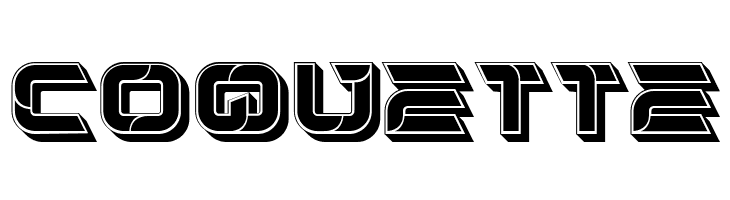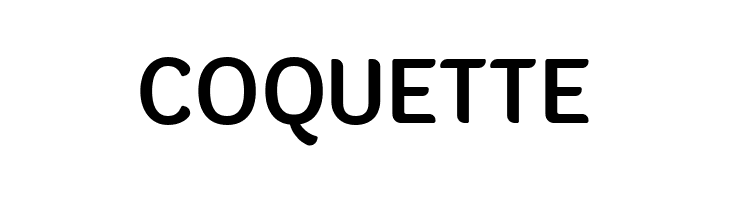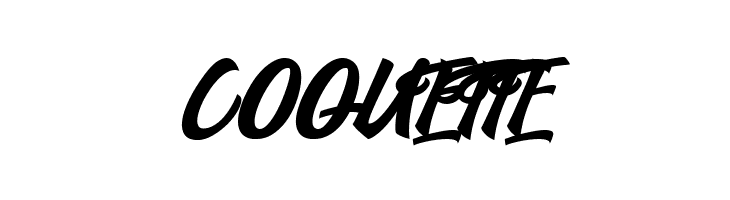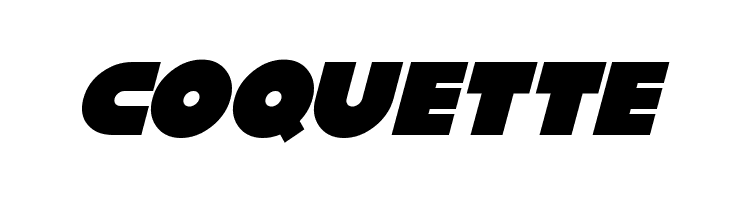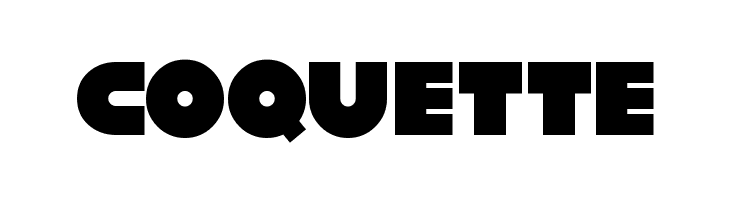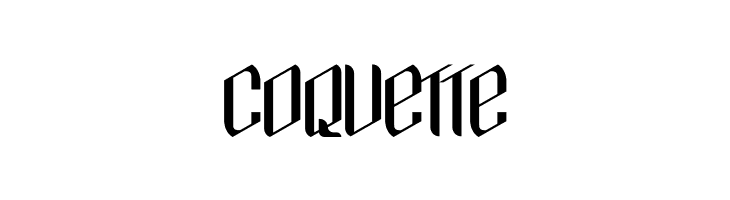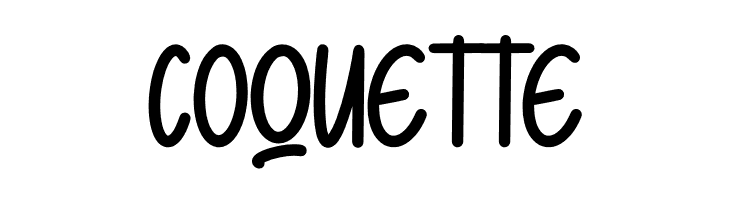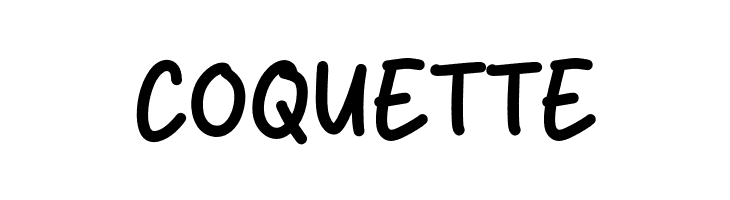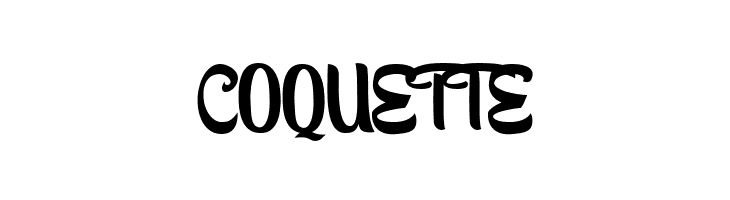
A bold, geometric font with a modern and playful aesthetic.
A bold, italic font with a geometric and dynamic style.
A playful, bold handwritten script font with smooth, rounded strokes.
A bold, angular font with high contrast and geometric influences.
A playful, casual handwritten font with smooth, rounded edges.
A bold, geometric font with a futuristic and dynamic style.
A bold, energetic script font with fluid, connected letters.
A playful, casual handwritten font with rounded, smooth letterforms.
A modern sans-serif font with rounded edges and a friendly appearance.
A modern sans-serif font with rounded edges and consistent stroke widths.